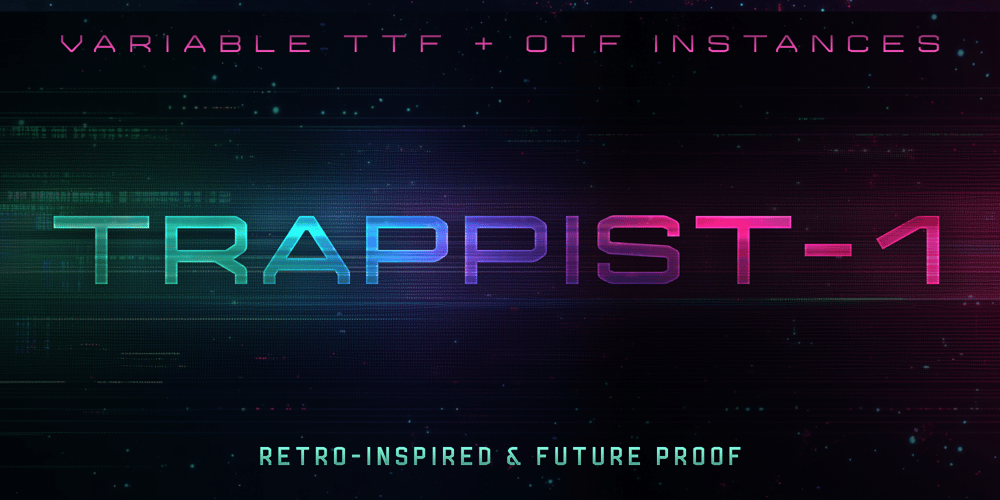
LS Trappist 1 Font Family was designed by Derik Schneider and published by Leviathan Science. LS Trappist 1 contains 36 styles and family package options. LS Trappist 1 is a tribute to retro and modern futurism, drawing inspiration from iconic movies, toys, electronics, video games, and music from the early 1980s to the present. This square, utilitarian font is versatile and stylish, offering a wide range of uses wherever legibility and bold design are essential.Ideal for user interfaces with sci-fi, futuristic, military, or sports themes, LS Trappist 1 strikes the perfect balance between structure and style. Each character has been meticulously crafted to ensure exceptional readability, making it a reliable choice for various applications.Its robust presence across all weights and widths makes it an excellent option for titles, logos, branding, and display purposes. Whether in a minimalist or bold context, LS Trappist 1 is designed to stand out and elevate your project.